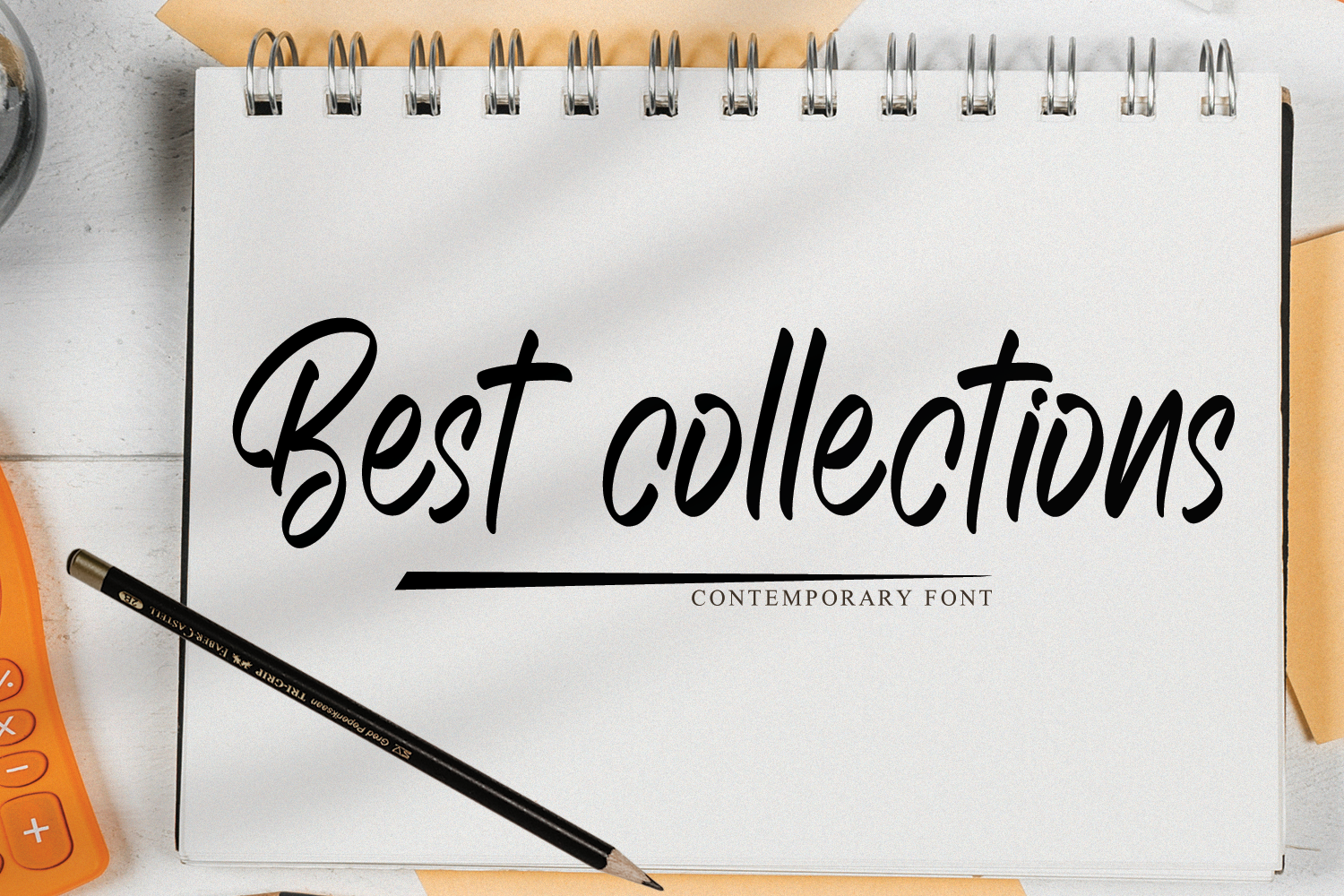
Best Collections//Contemporary Font
Hi Everyone's,... Design and introduce your business products with modern typography and full of natural impression. Best collection fonts will give all these impressions to help your product look more memorable in everyone's hearts. Best Collections fonts will be a wonderful asset to your font library and perfect for many projects such as logos & branding, stationery, logo designs, social media posts, advertisements, product packaging, product designs, label, watermark, product branding and others.
- Multilingual Support for 83 Country
- Special Underline Collection